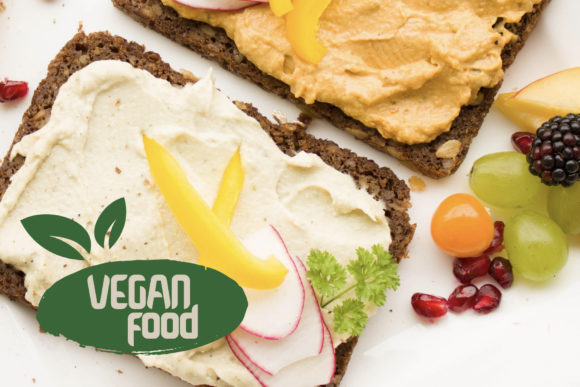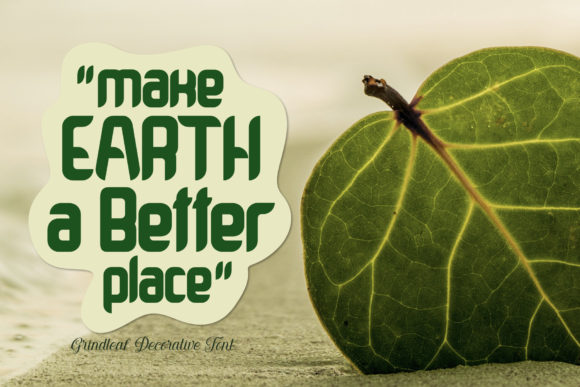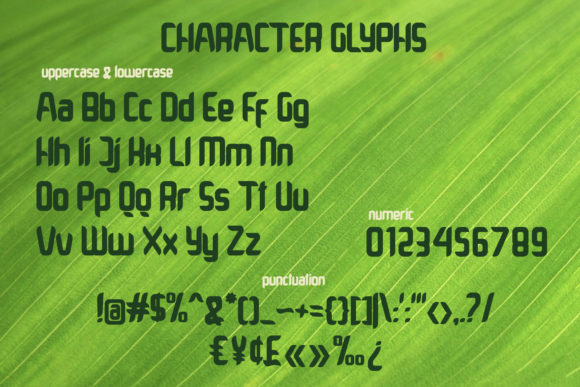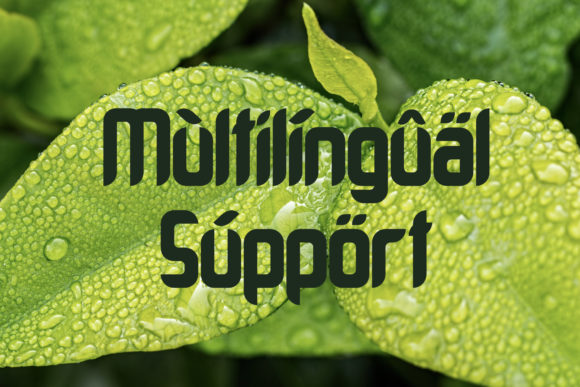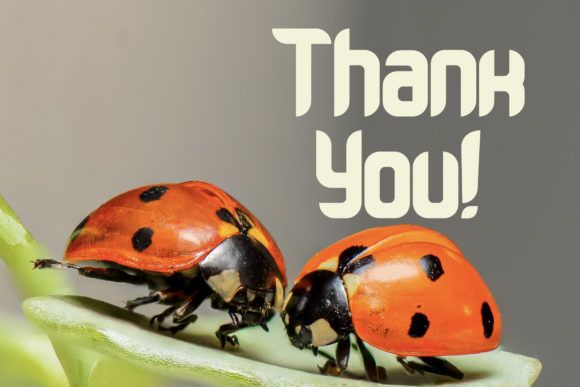
Introducing Grindleaf Font: The Ultimate Vintage Display Font for Designers and Crafters
Are you tired of using the same old fonts for your designs and crafts? Look no further! Grindleaf Font is here to revolutionize your creative projects with its unique, vintage-styled, and cool display font. Whether you’re a designer, crafter, or simply someone who loves making greeting cards, Grindleaf Font is the perfect addition to your toolkit.
What Makes Grindleaf Font So Special?
Grindleaf Font is a carefully crafted display font that exudes a sense of nostalgia and playfulness. Its vintage style is reminiscent of classic posters, advertisements, and logos from the early 20th century. With its bold lines, curvaceous shapes, and distinctive flair, Grindleaf Font is sure to add a touch of personality to any project.
One of the standout features of Grindleaf Font is its versatility. Whether you’re working on a digital design, a presentation, a craft project, or a greeting card, this font is perfect for adding a touch of whimsy and sophistication. Its cool and edgy vibe makes it ideal for a wide range of applications, from modern designs to vintage-inspired creations.
Why Designers Love Grindleaf Font
As a designer, you know how important it is to have a font that can elevate your work and make it stand out from the crowd. Grindleaf Font is a game-changer in this regard. Here are just a few reasons why designers love this font:
- Unique Style: Grindleaf Font has a distinctive style that’s hard to find in other fonts. Its vintage flair and bold lines make it perfect for creating eye-catching designs that grab attention.
- Highly Versatile: Whether you’re working on a logo, brochure, or website, Grindleaf Font can be used in a variety of contexts to add a touch of personality and whimsy.
- Easy to Read: Despite its bold and curvaceous design, Grindleaf Font is surprisingly easy to read, making it perfect for use in body text as well as headings.
Why Crafters Love Grindleaf Font
Crafters and makers also adore Grindleaf Font for its unique and playful style. Here are just a few reasons why:
- Perfect for Handmade Projects: Grindleaf Font is ideal for adding a personal touch to handmade projects, such as greeting cards, scrapbooking, and other paper crafts.
- Adds a Touch of Whimsy: Whether you’re making a gift tag, a banner, or a decorative sign, Grindleaf Font adds a touch of whimsy and personality to your project.
- Easy to Use: Grindleaf Font is easy to use, even for those who are new to crafting and design. Its clear and bold lines make it simple to read and work with.
How to Use Grindleaf Font in Your Projects
Using Grindleaf Font in your projects is easy! Here are a few tips to get you started:
- Pair it with Other Fonts: Grindleaf Font looks great when paired with other fonts, such as sans-serif fonts or script fonts. Experiment with different combinations to find the perfect look for your project.
- Use it for Headings: Grindleaf Font is perfect for use in headings and titles, where its bold and curvaceous design can really make an impact.
- Add it to Your Digital Toolkit: Grindleaf Font is a versatile font that can be used in a variety of digital applications, from social media graphics to website headers.
In conclusion, Grindleaf Font is a cool, vintage-styled, and cool display font that’s perfect for designers, crafters, and makers. Its unique style, versatility, and ease of use make it a valuable addition to any creative toolkit. Whether you’re working on a digital design, a craft project, or a greeting card, Grindleaf Font is sure to add a touch of personality and whimsy to your work. So why wait? Download Grindleaf Font today and start creating!